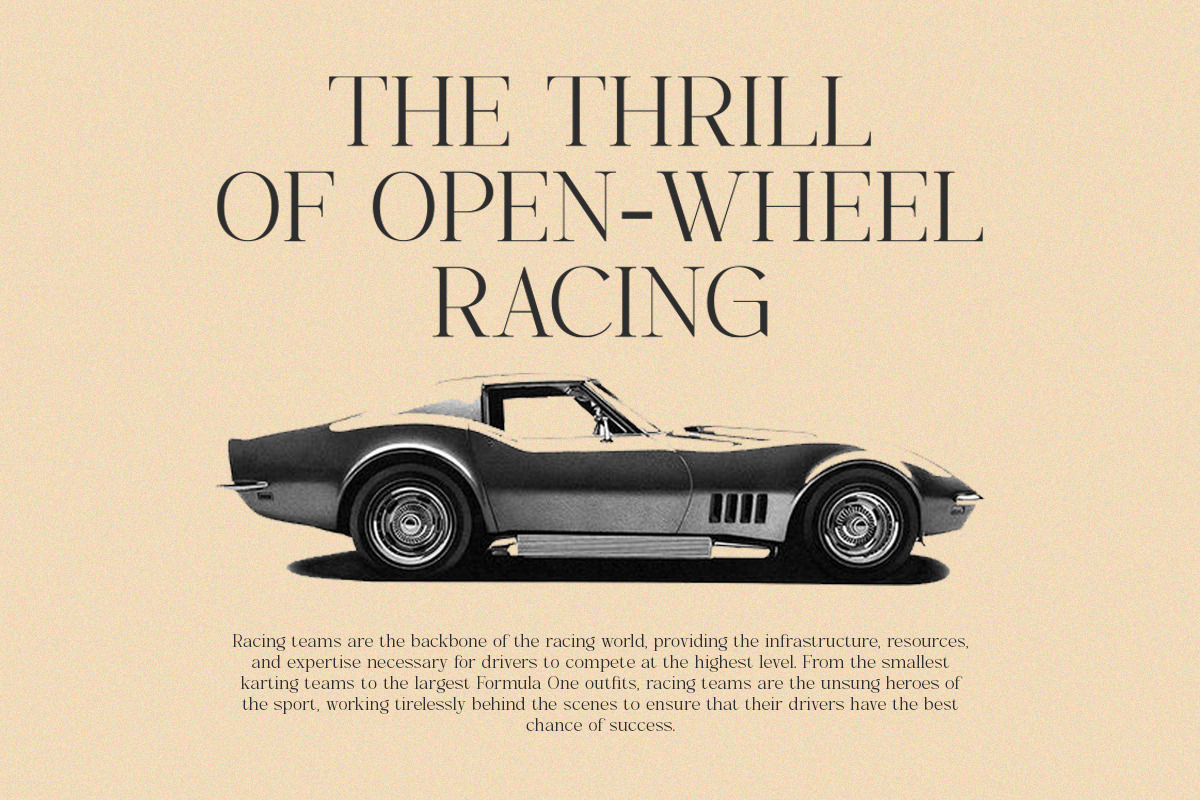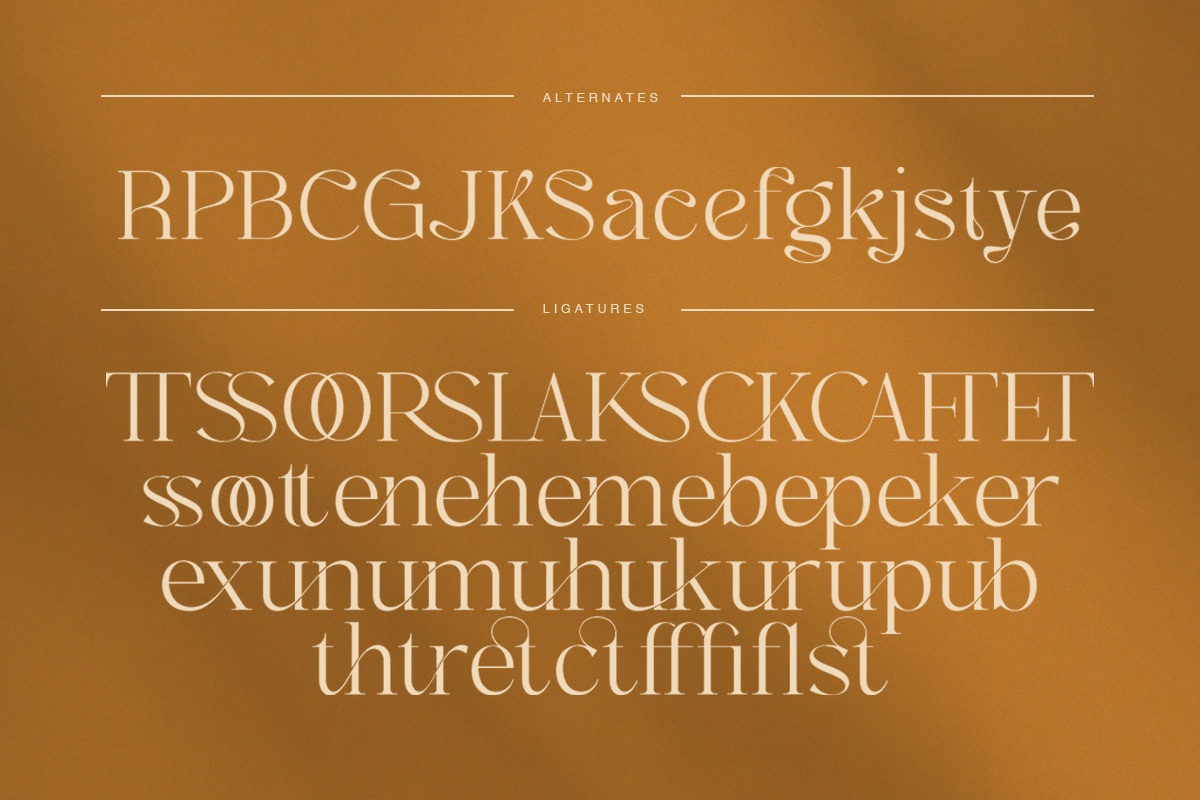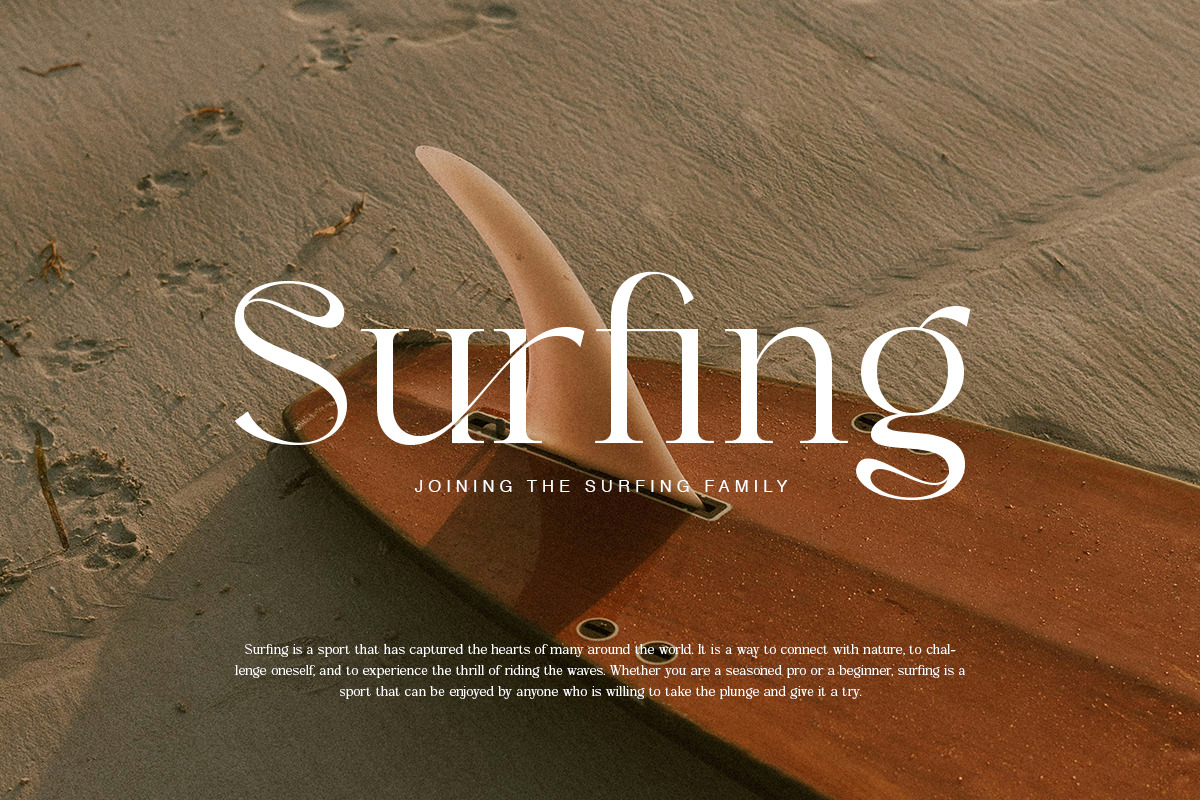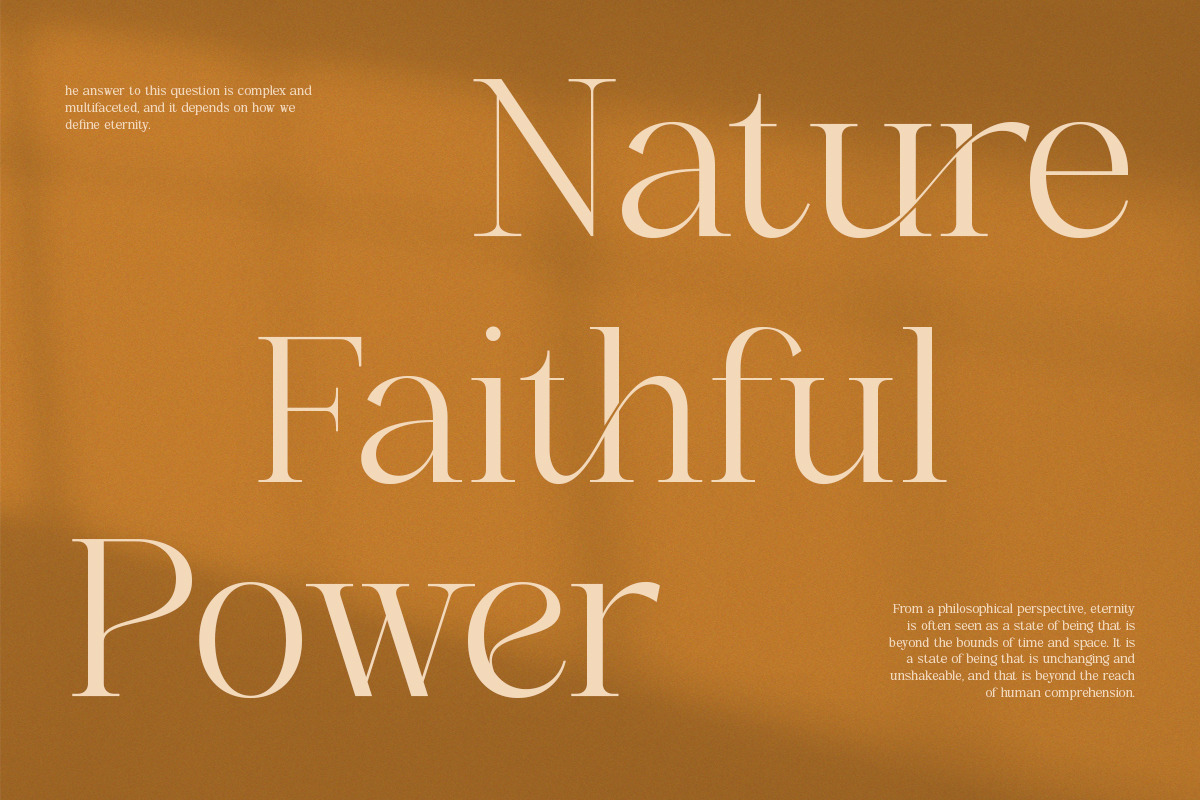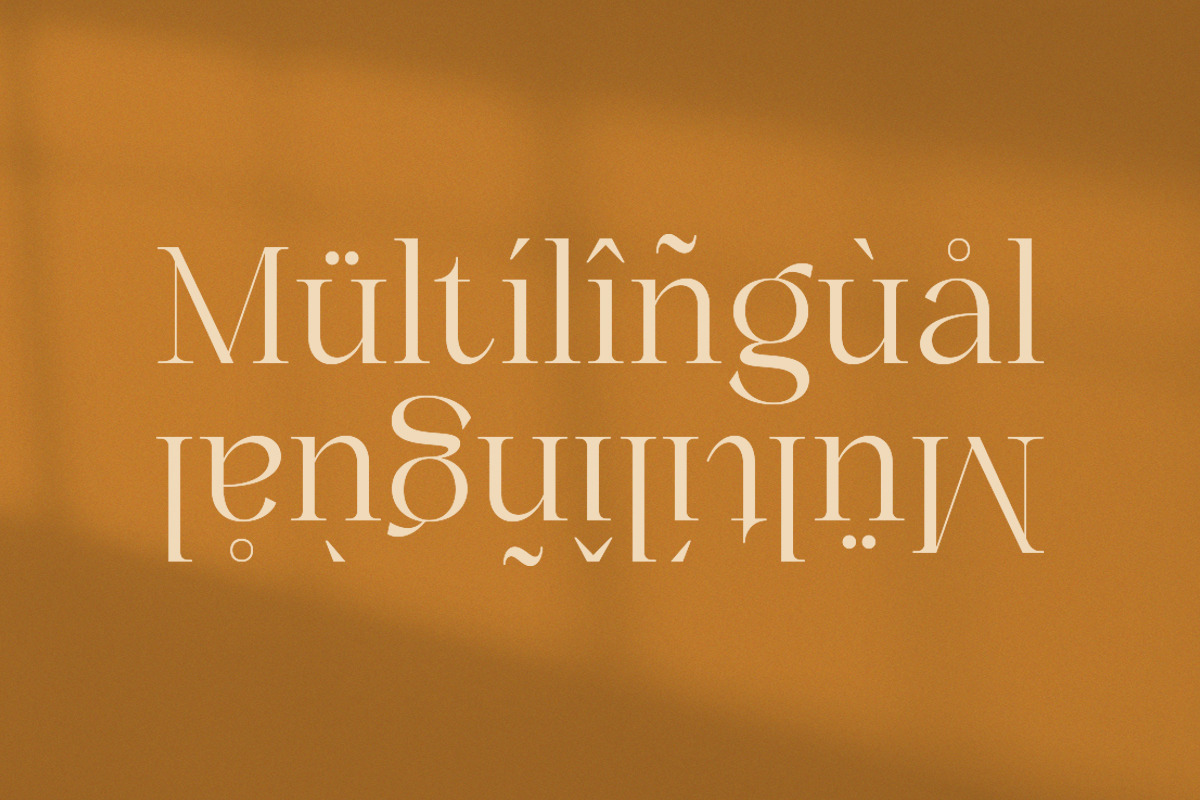
Caster Modern Chic Serif
Introducing the Caster Modern Chic Serif! This font isn't just about style—it's about making your designs luxury with elegance. With its sleek alternates and graceful ligatures, Caster is perfect for all your graphic design needs. Whether you're crafting a logo, designing a poster, or creating a stunning website, this font delivers.
Ensuring compatibility across platforms. Plus, it's multilingual-friendly, so no matter which language you're working with, Caster has your back.